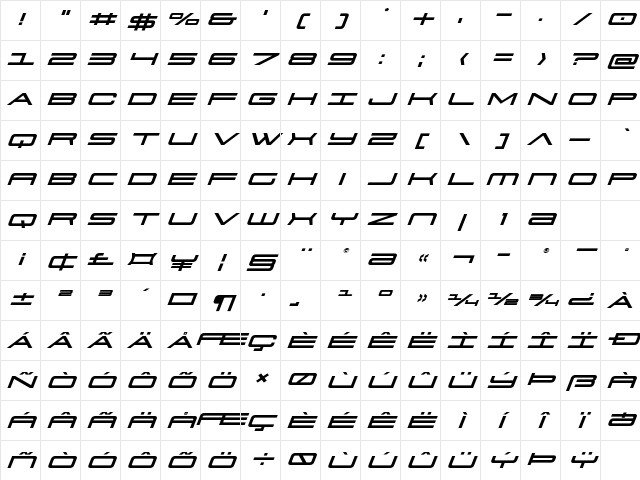
911 Porscha Expanded Italic Free Font
911 Porscha Expanded Italic Expanded Italic
Style: Expanded Italic
Designer: Daniel Zadorozny
Design Context for 911 Porscha Expanded Italic
911 Porscha Expanded Italic is a composed and adaptable typeface that performs quietly and consistently across a wide range of design contexts. The slanted form adds forward momentum and visual energy.
Pro Tip: Use 911 Porscha Expanded Italic for emphasis, pull quotes, and subheadings where its slanted energy can add rhythm to the layout.